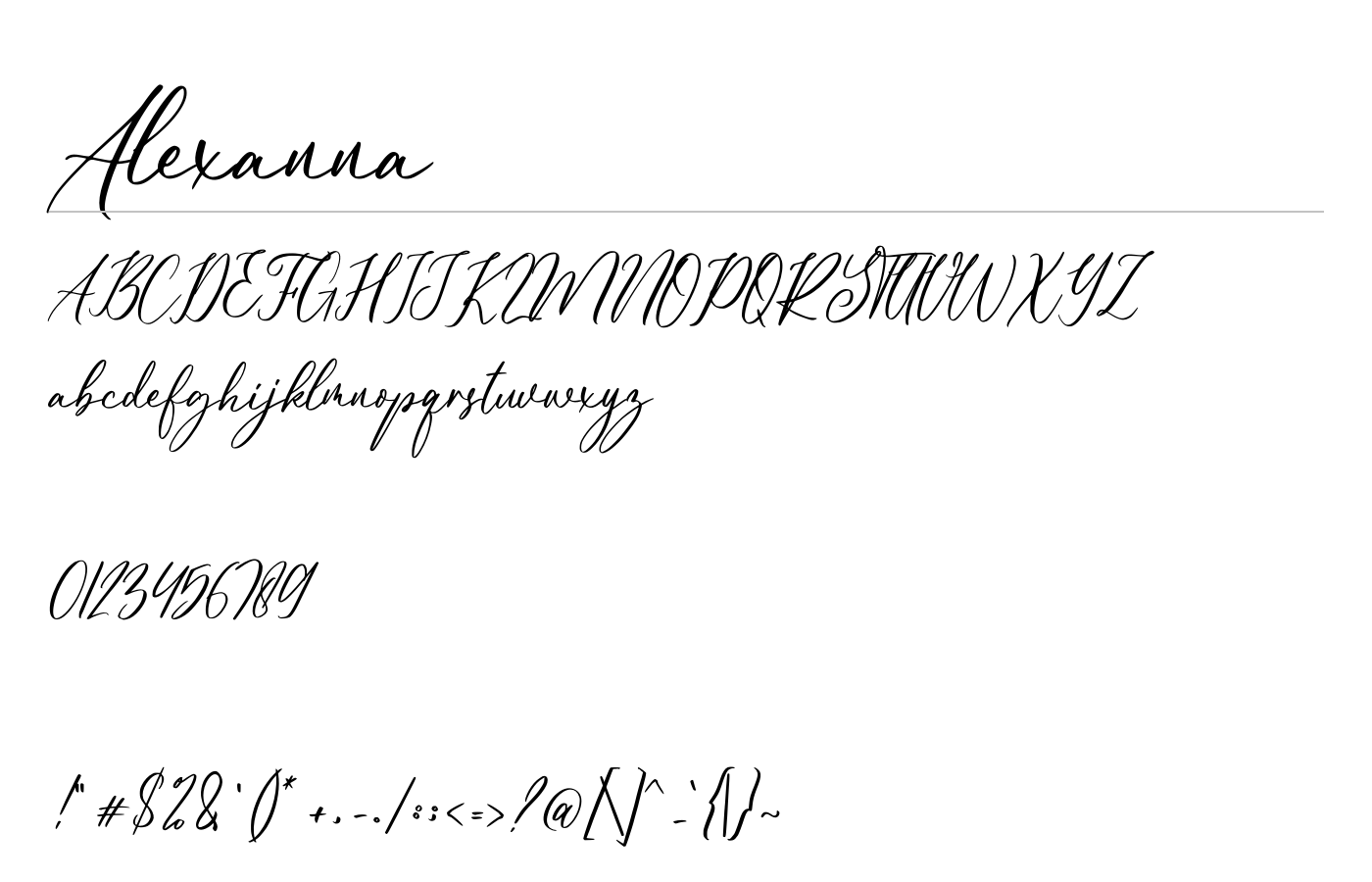
Alexanna is an elegant script font with a delicate, handwritten style characterized by flowing, slender strokes and graceful curves. Its high contrast and refined letterforms give it a sophisticated and personal feel, making it ideal for romantic branding, invitations, and stylish logo design where a touch of elegance and charm is desired.
Alexanna Font